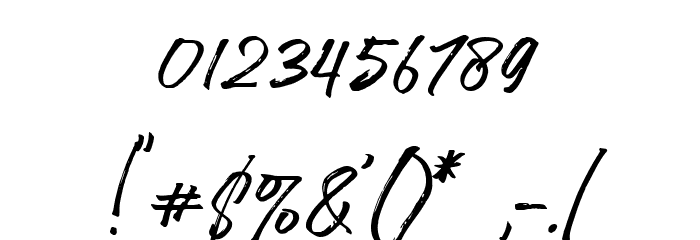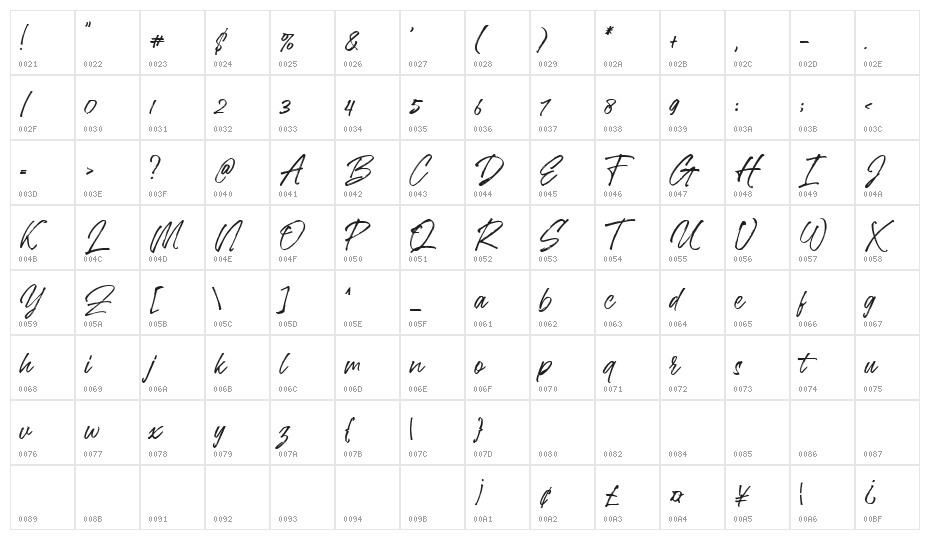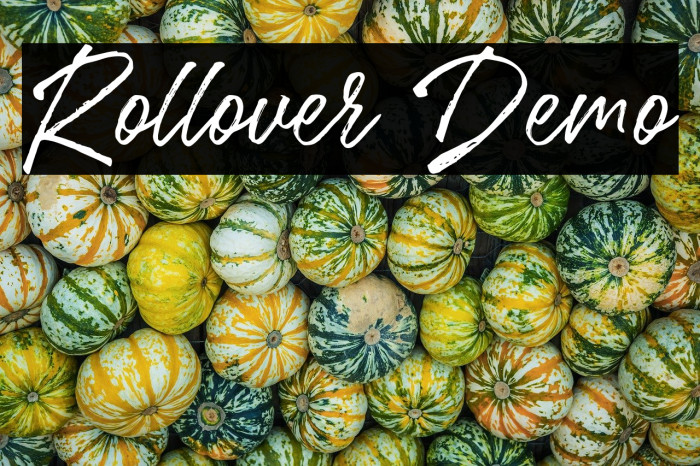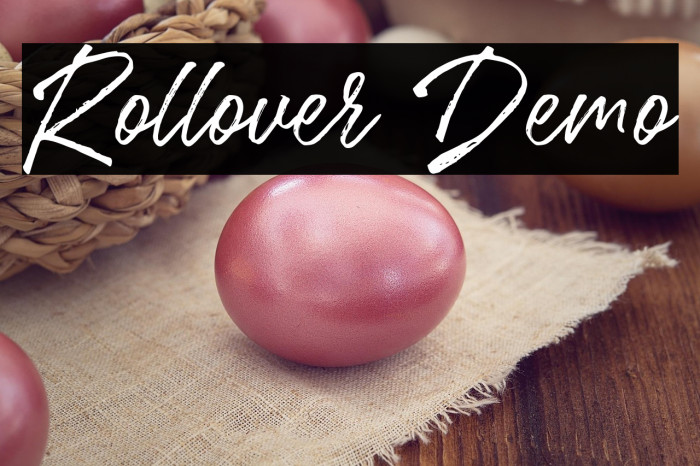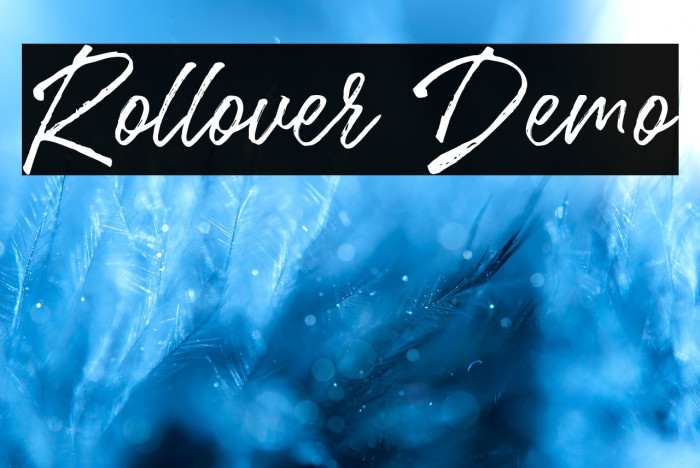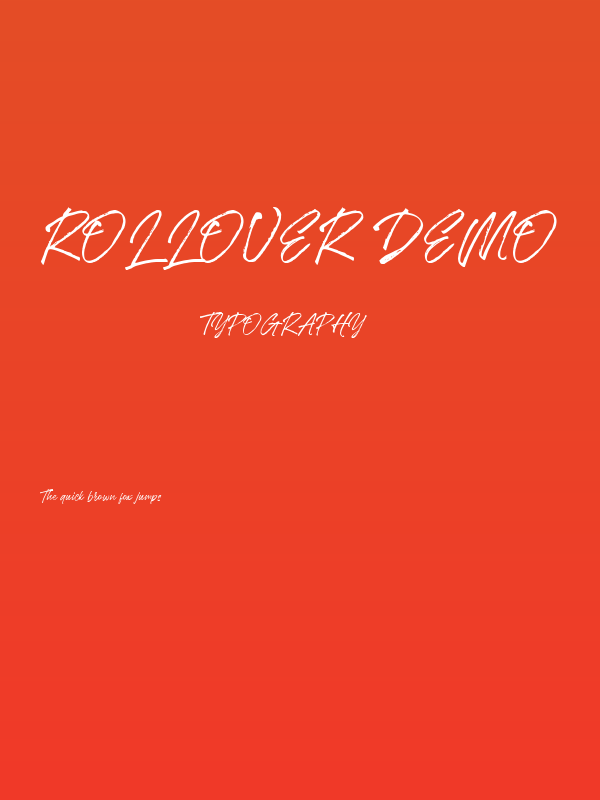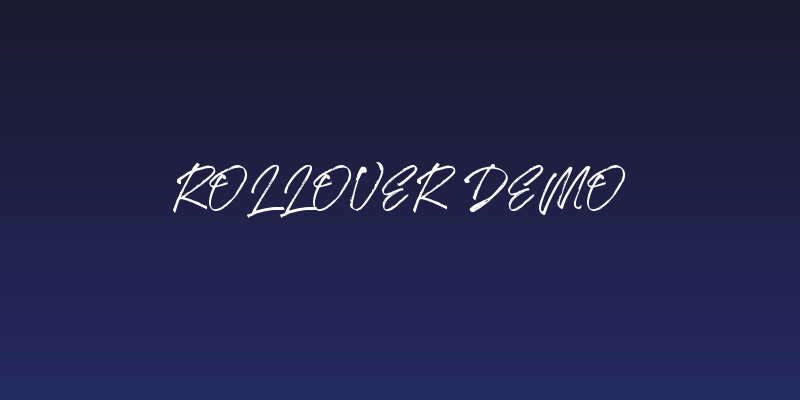
Rollover Demo Font
Rollover Demo Description
This font exhibits a dynamic and expressive handwritten style, characterized by its fluid and cursive strokes. The uppercase letters are bold and slightly slanted, giving a sense of motion and elegance. The lowercase letters maintain a consistent flow, with some characters featuring distinctive loops and swashes that enhance the handwritten aesthetic. The numerals are clear and maintain the same stylistic flair, ensuring readability while preserving the artistic touch. Special characters are designed with the same attention to detail, integrating seamlessly with the rest of the font. Overall, this font combines a sense of spontaneity with a refined elegance, making it suitable for creative and artistic projects.
Use CaseLogos, Headlines, Artistic projects
Proposed ProjectsIdeal for wedding invitations, greeting cards, personal branding, and artistic posters.